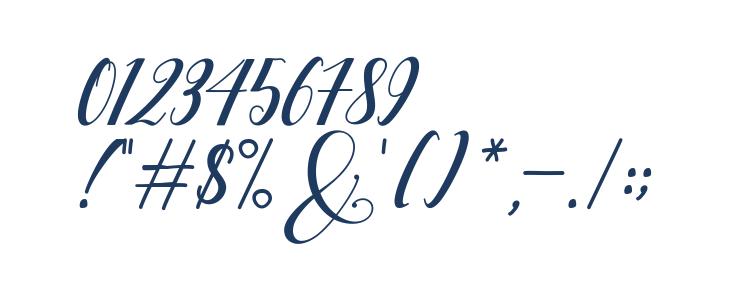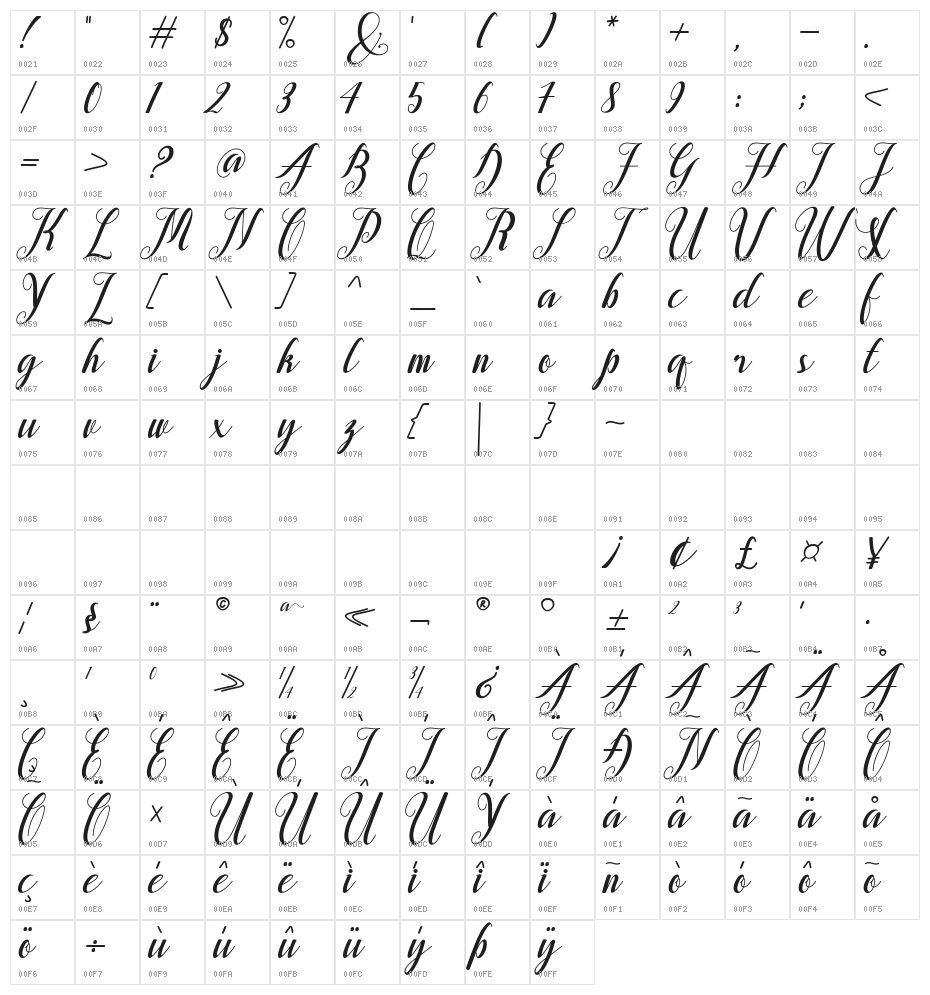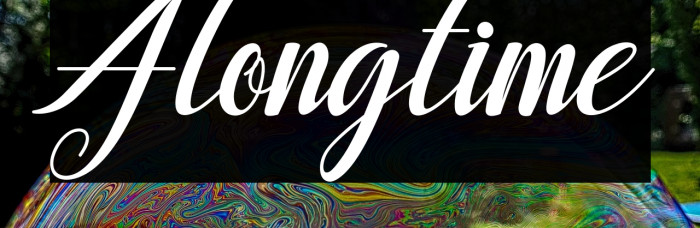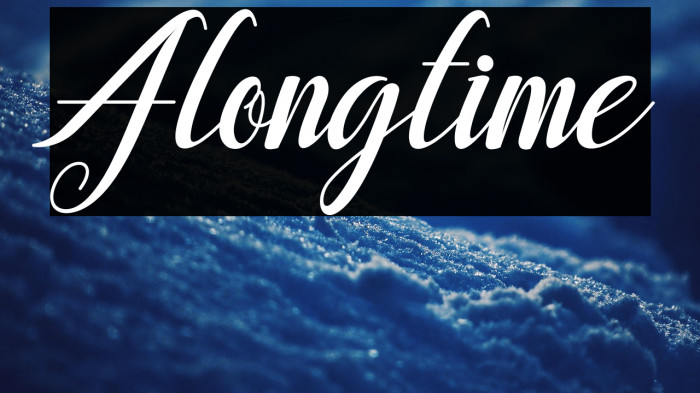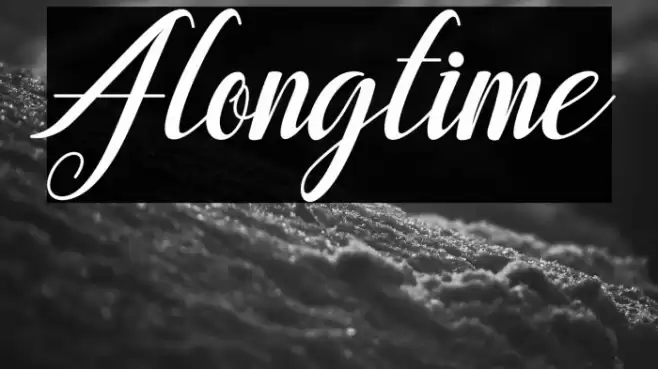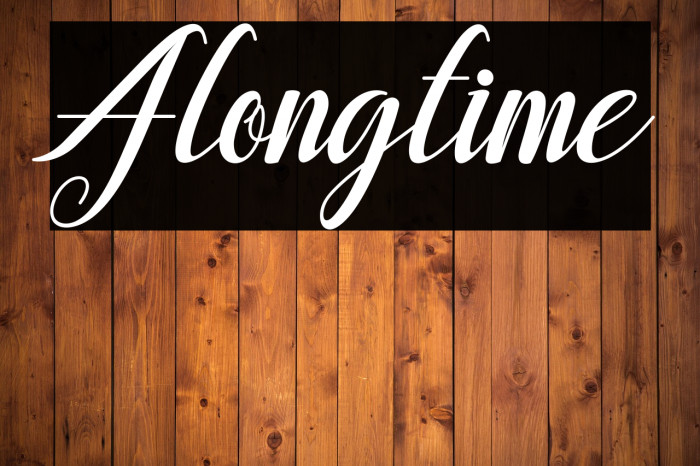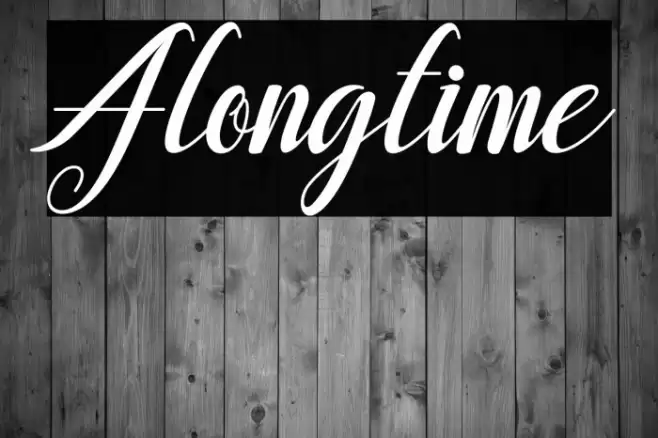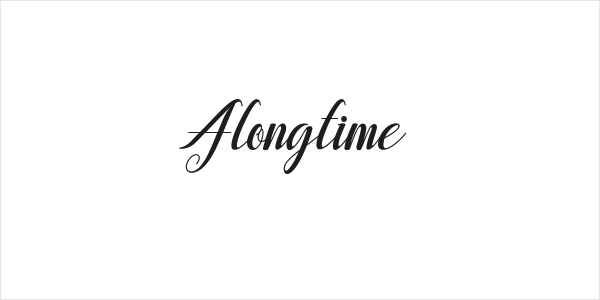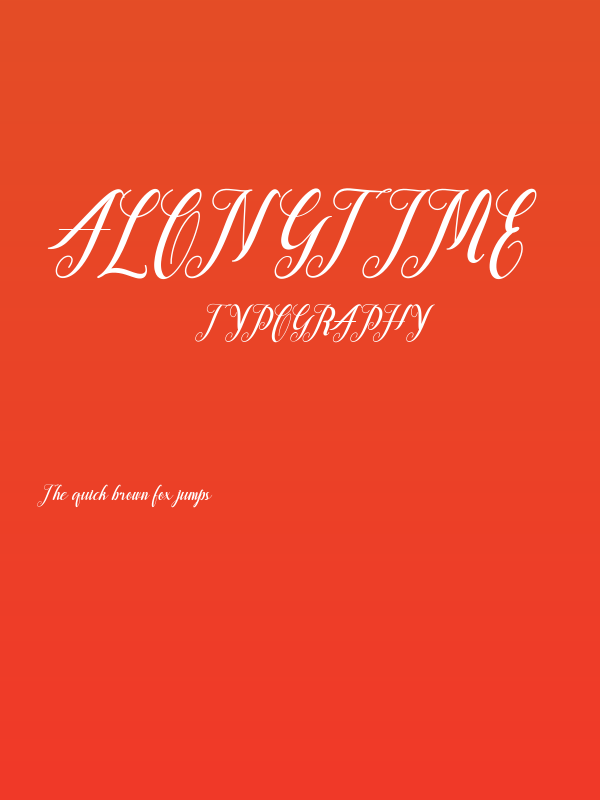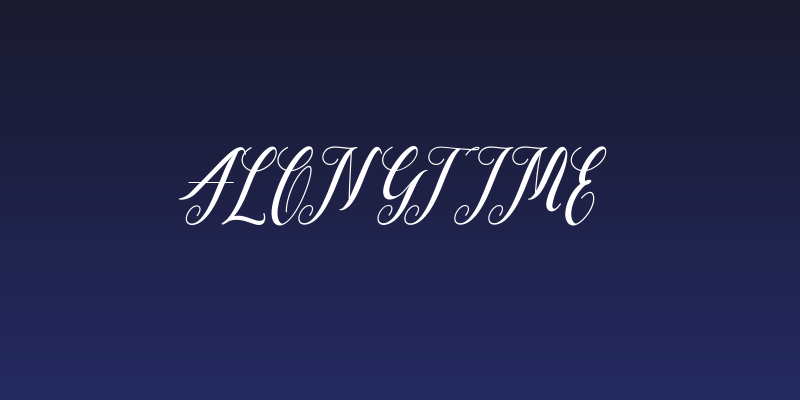
Alongtime Font
Alongtime Description
This font exudes elegance and sophistication with its flowing, cursive style. The uppercase letters are characterized by their tall, slender forms and graceful loops, while the lowercase letters maintain a smooth, connected script that enhances readability. The numerals are equally stylish, featuring a consistent slant and decorative flair. Special characters are thoughtfully designed to complement the overall aesthetic, making this font ideal for projects that require a touch of class and refinement. Its high contrast in stroke thickness adds to its visual appeal, ensuring that each character stands out distinctly.
| Proposed Projects | Ideal for wedding invitations, elegant branding, luxury product packaging, and formal event programs. |